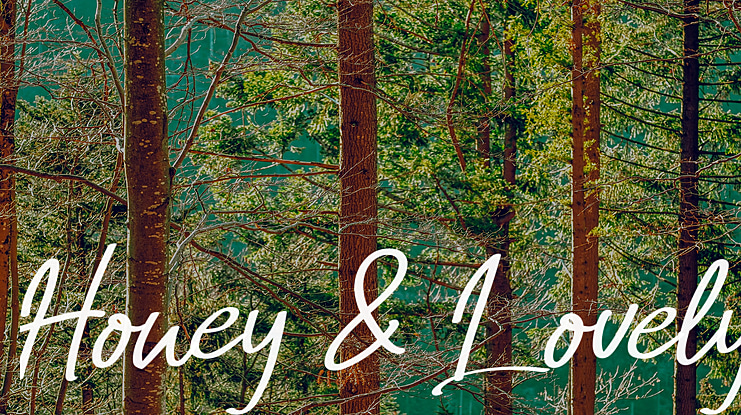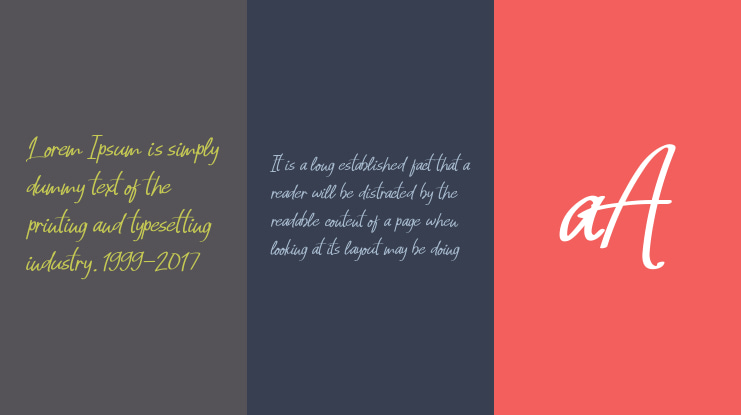
Honey & Lovely Font
Honey & Lovely is a casual handwritten, carefully handcrafted to become a true favorite. Whether youre looking for fonts for Instagram or calligraphy scripts for DIY projects, this font will turn any creative idea into a true piece of art!